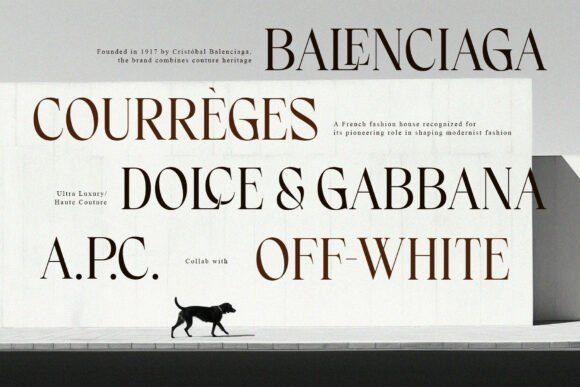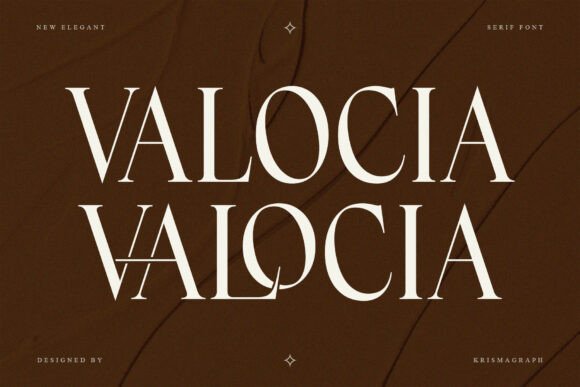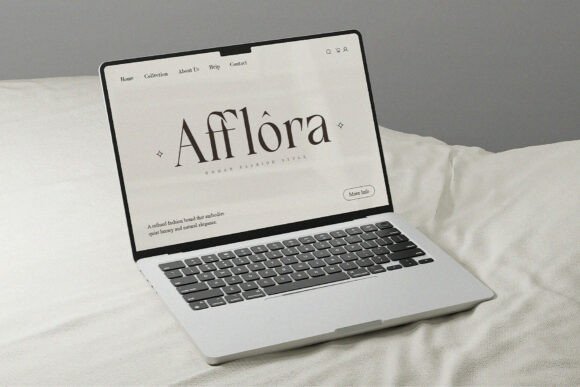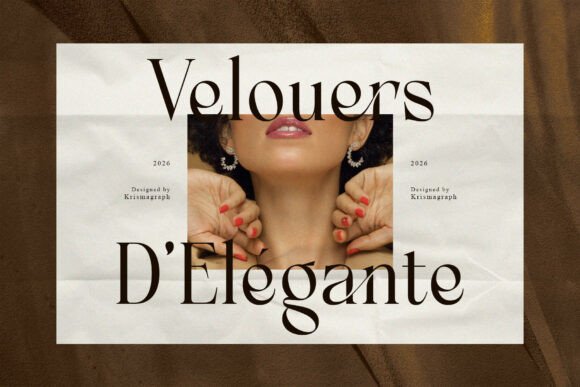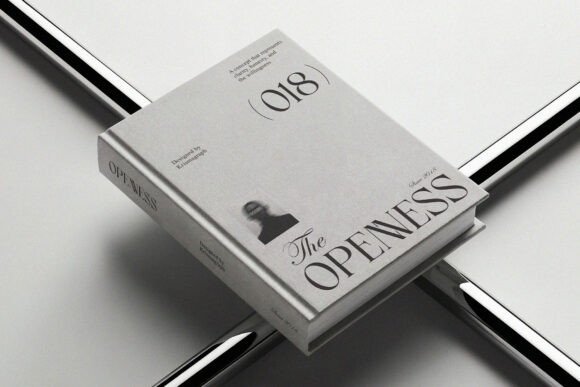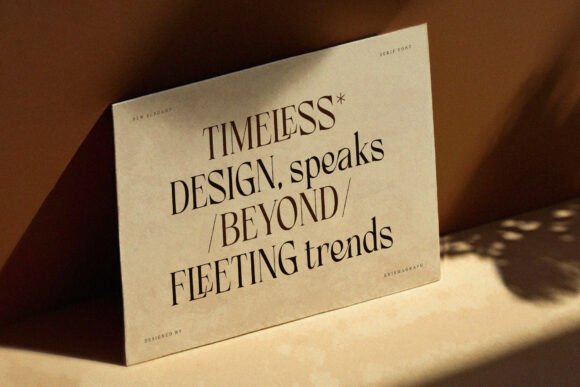
Introduction to Frenchy Font
Frenchy is an elegant ligature and modern serif font designed with clean proportions, refined contrast, and a timeless character.
Its balanced structure and graceful details make it suitable for contemporary design needs while maintaining a classic serif foundation This font works beautifully for branding, editorial layouts, logo design, packaging, website headlines, posters, and premium print materials.
Key Features of Frenchy Font
Why Choose Frenchy Font?